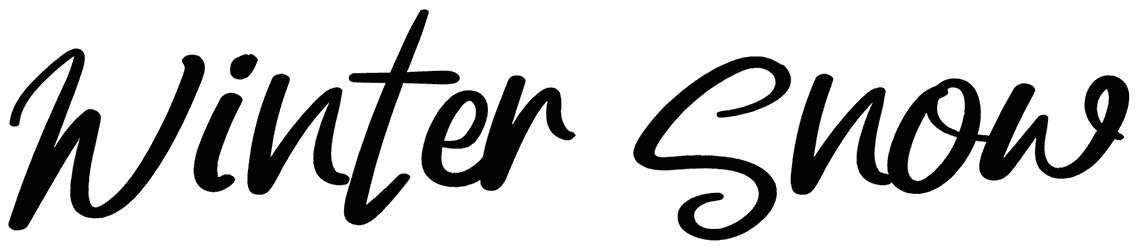
Winter Snow Font
You can provide an adorable and lively sense to your words with Winter Snow. This handwritten font with a contemporary face and nice curves is a versatile option for any text. In your incoming project, such as wedding st…
You can provide an adorable and lively sense to your words with Winter Snow. This handwritten font with a contemporary face and nice curves is a versatile option for any text. In your incoming project, such as wedding stationery, social media graphics, quotes, and so forth, try Winter Snow and have a delightful show.